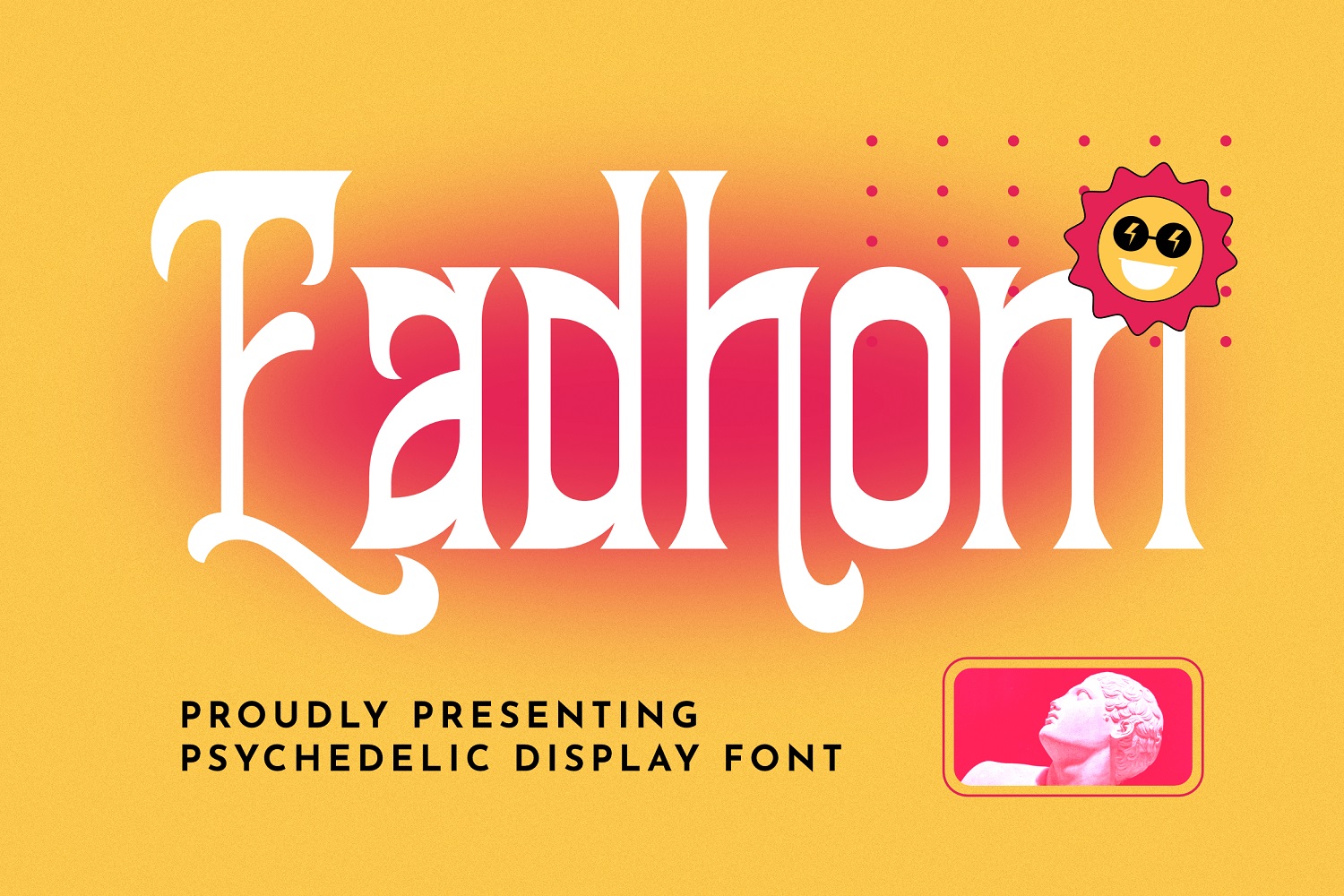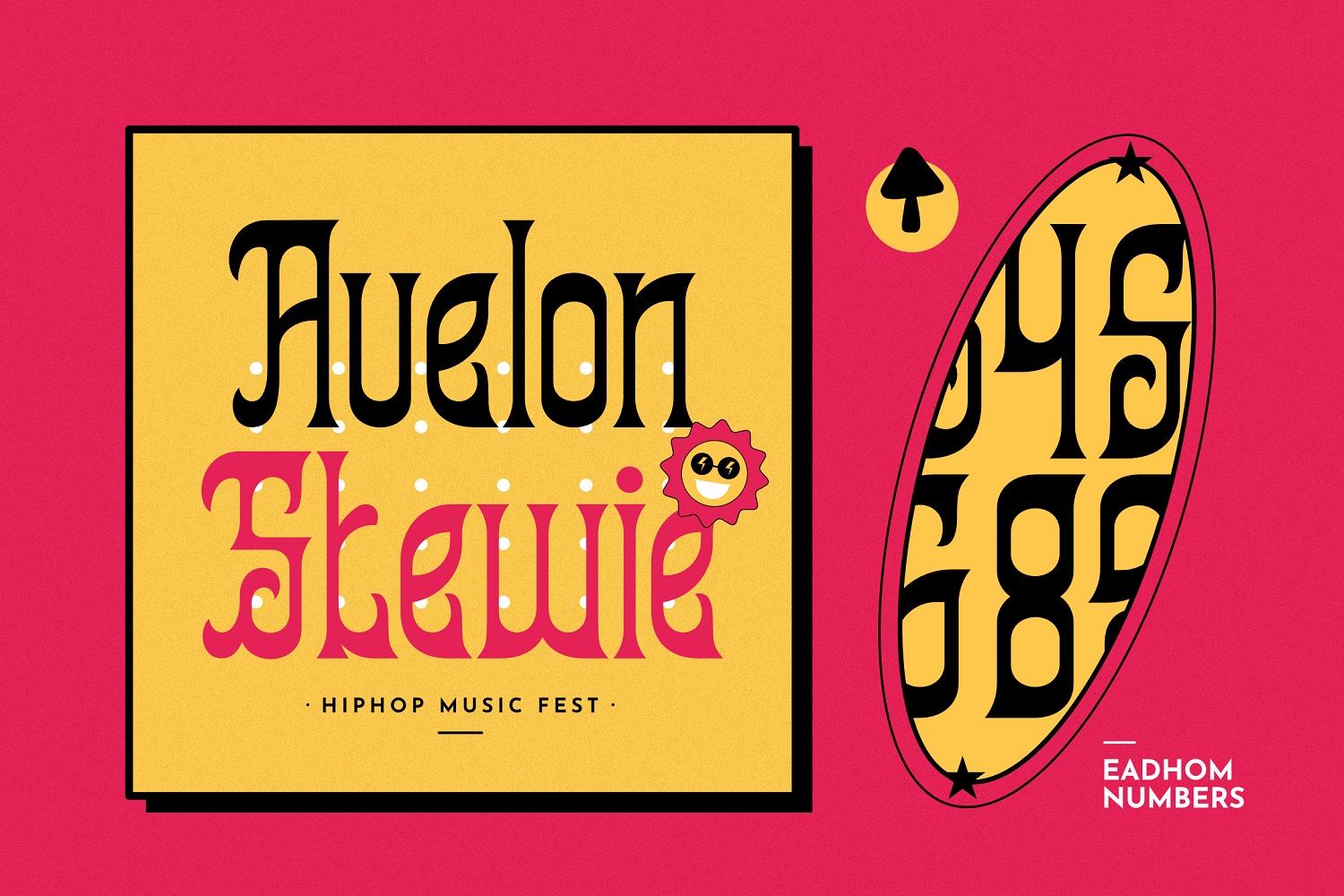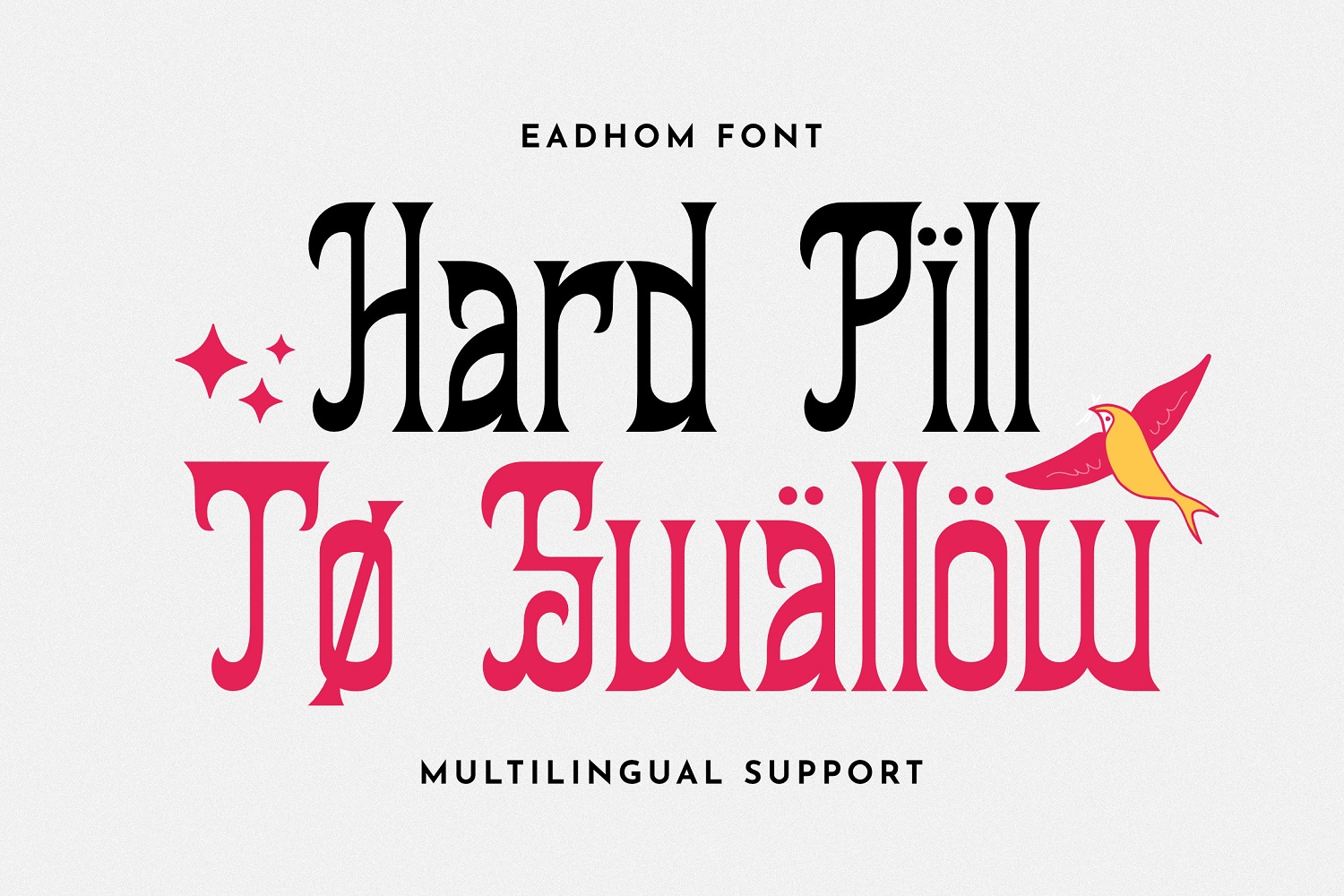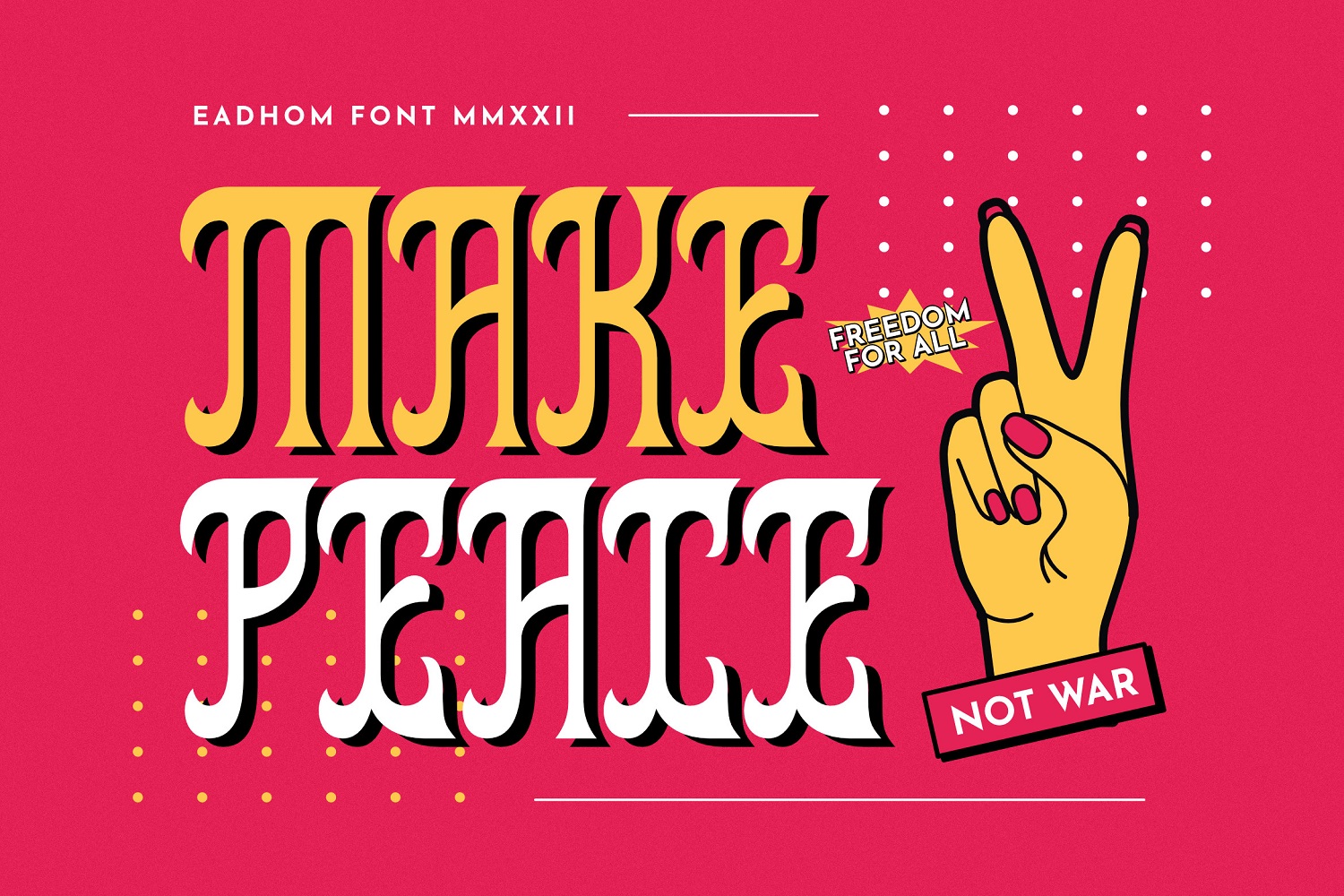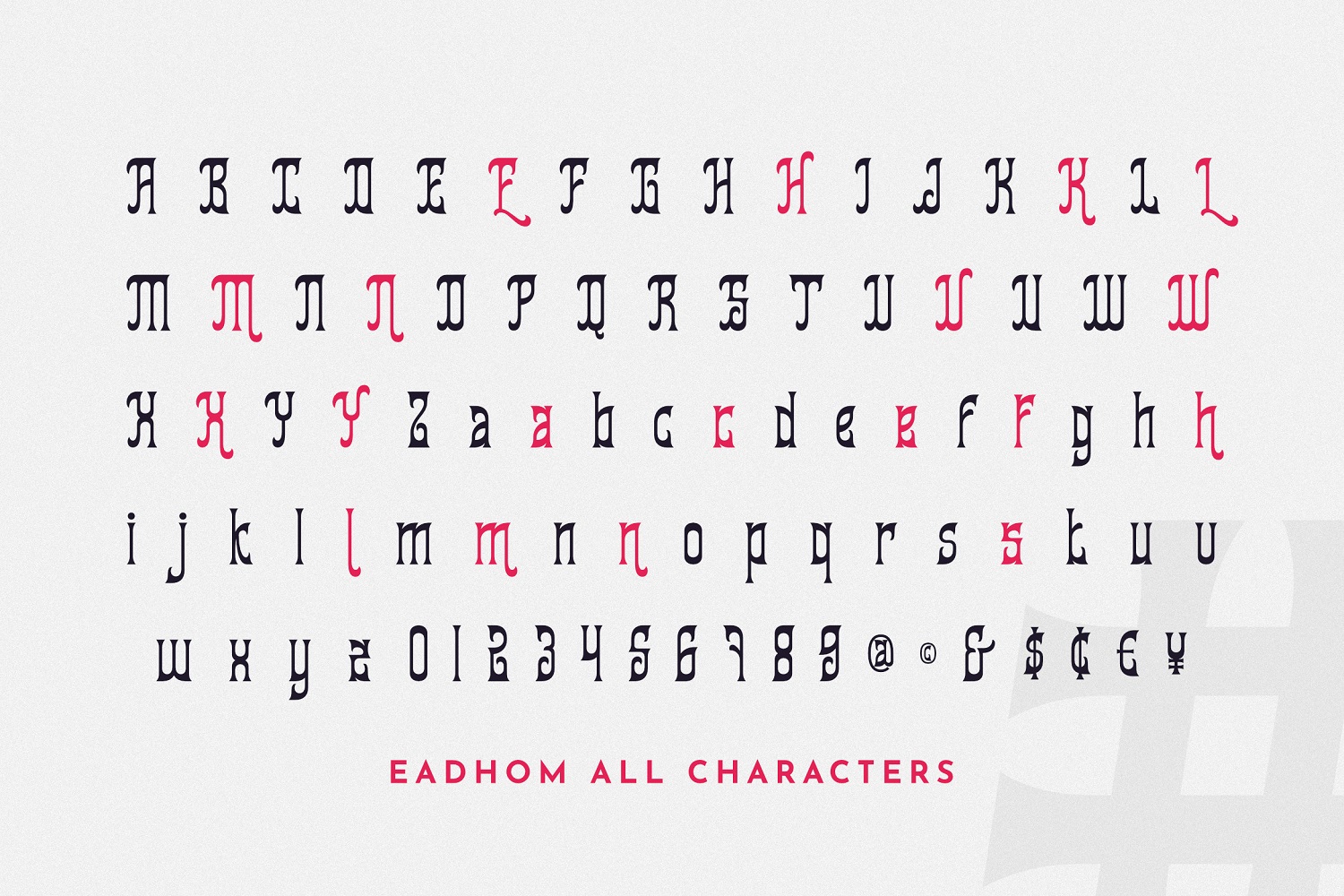
Eadhom is a psychedelic display font that bursts with retro flair and expressive personality. With its bold curves, elongated stems, and vibrant character alternates, Eadhom captures the spirit of vintage music posters, underground zines, and expressive visual rebellion. It strikes a perfect balance between playful energy and gothic elegance, making it a distinctive choice for designs that demand attention.
Ideal for music event posters, album covers, branding for creative industries, and expressive editorial design, Eadhom offers multilingual support and unique ligatures that elevate typographic compositions. Whether used for large headings or bold titles, this typeface brings character and soul to every letterform.
Eadhom